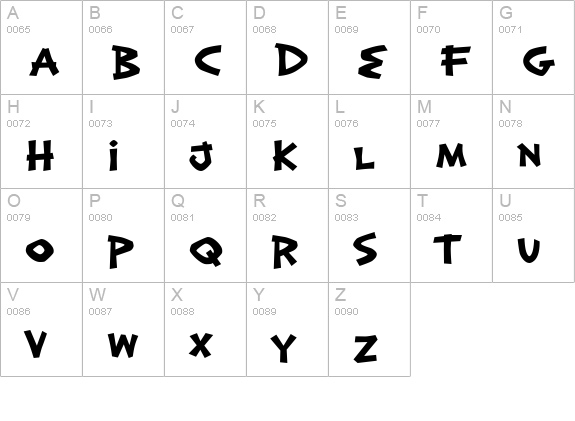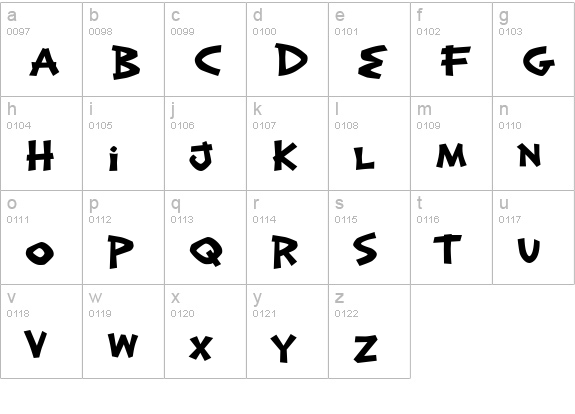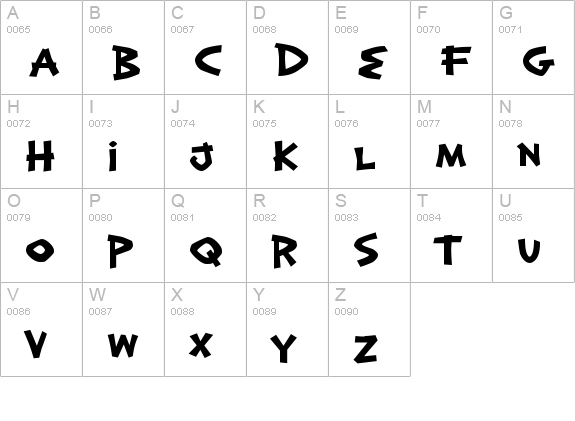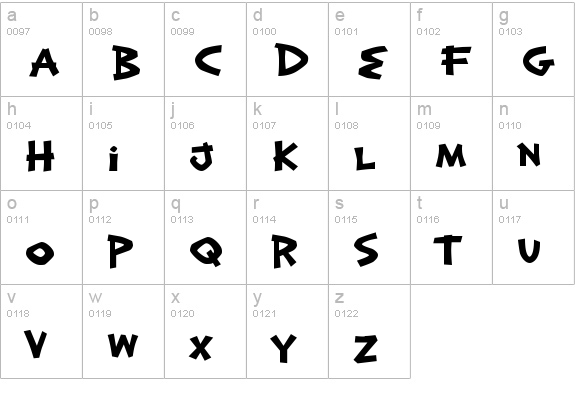
Exotic Island BTN Bold is a strong, high-contrast variant in the Exotic typeface family \xE2\x80\x94 well suited to headlines, attention-grabbing titles, and strong calls-to-action.
Exotic Island BTN Bold font exudes a sense of adventure and tropical charm with its bold and captivating design. The distinctive letterforms of this font are perfect for adding a touch of exotic flair to your projects. Whether you're creating a poster, logo, or website, Exotic Island BTN Bold font will make your text stand out and command attention. The best part is that Exotic Island BTN Bold font is free to download at FontsMarket.com. This means you can easily access this stunning font and use it in your design projects without any cost. Don't miss out on the opportunity to enhance your creations with the unique style and personality of Exotic Island BTN Bold font. Download it today and let your creativity run wild!